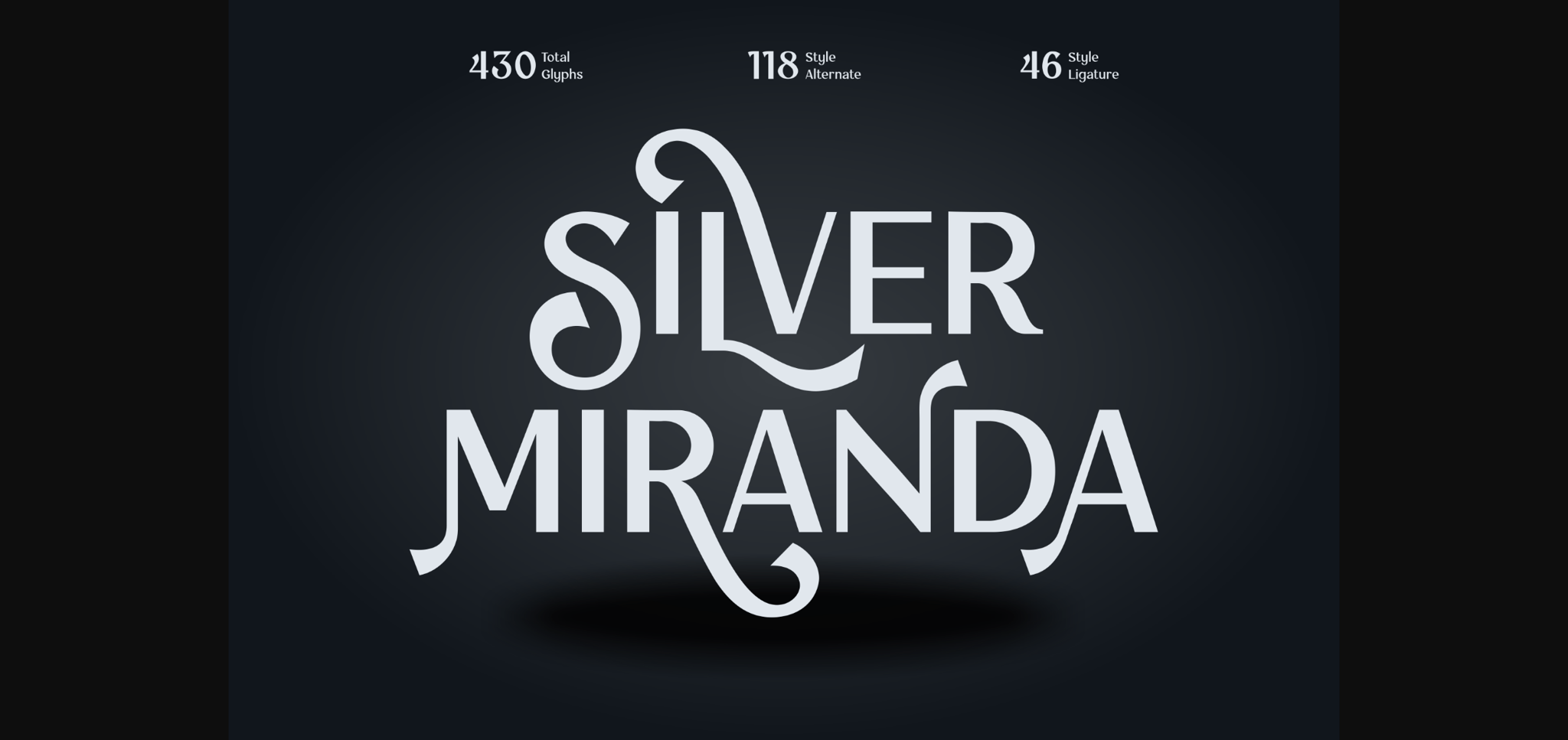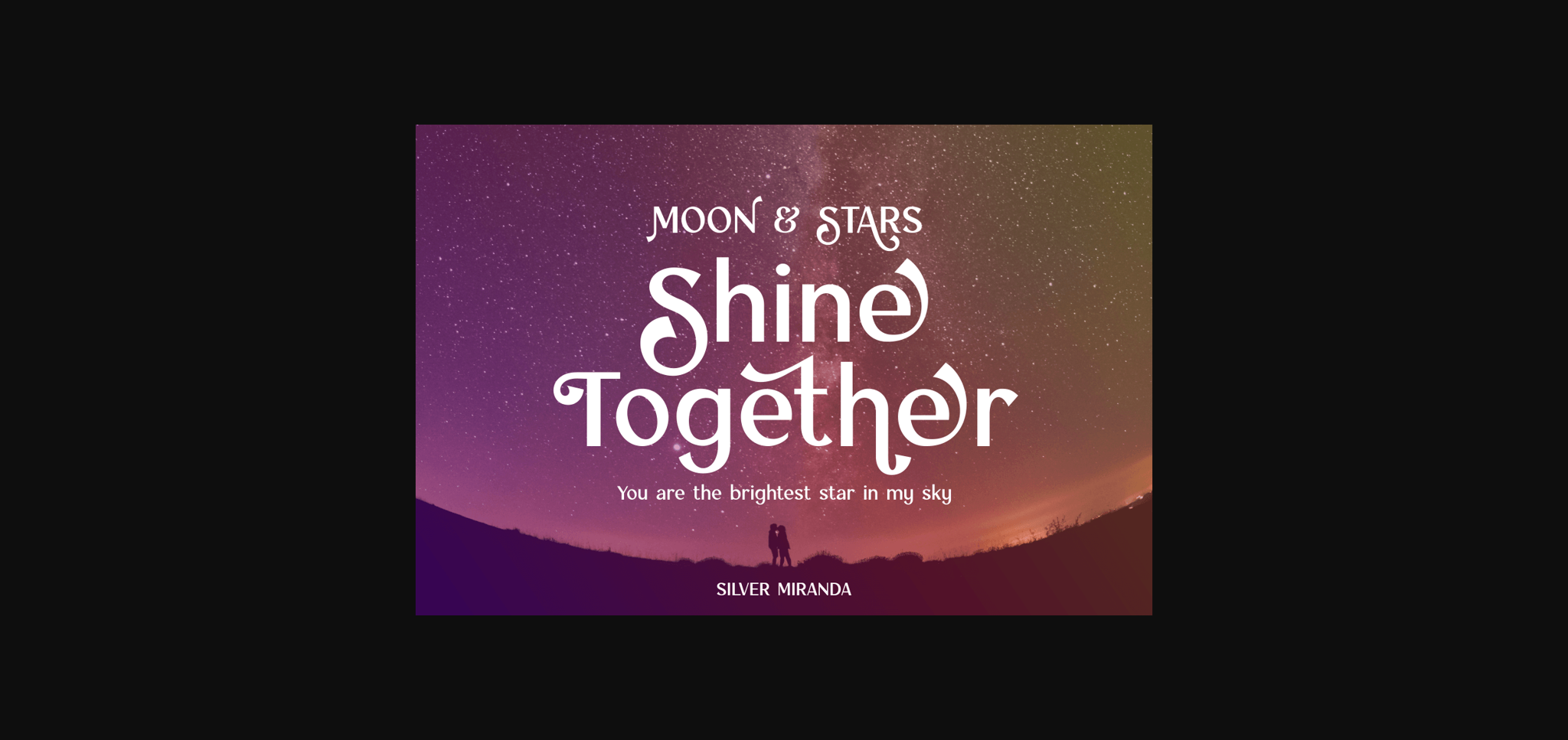
About Silver Miranda Font
Silver Miranda is a sans-serif font with an elegant and classy appearance. Each typeface is crafted to produce a vintage modern font. This font can direct you to access unique typeface collections. You can make works with clean elegant and professional writing, or make attractive decorative with alternates and ligatures style. This font is great for creating any desired project such as logos, posters, headlines, albums, quotes, clothes, and many more.